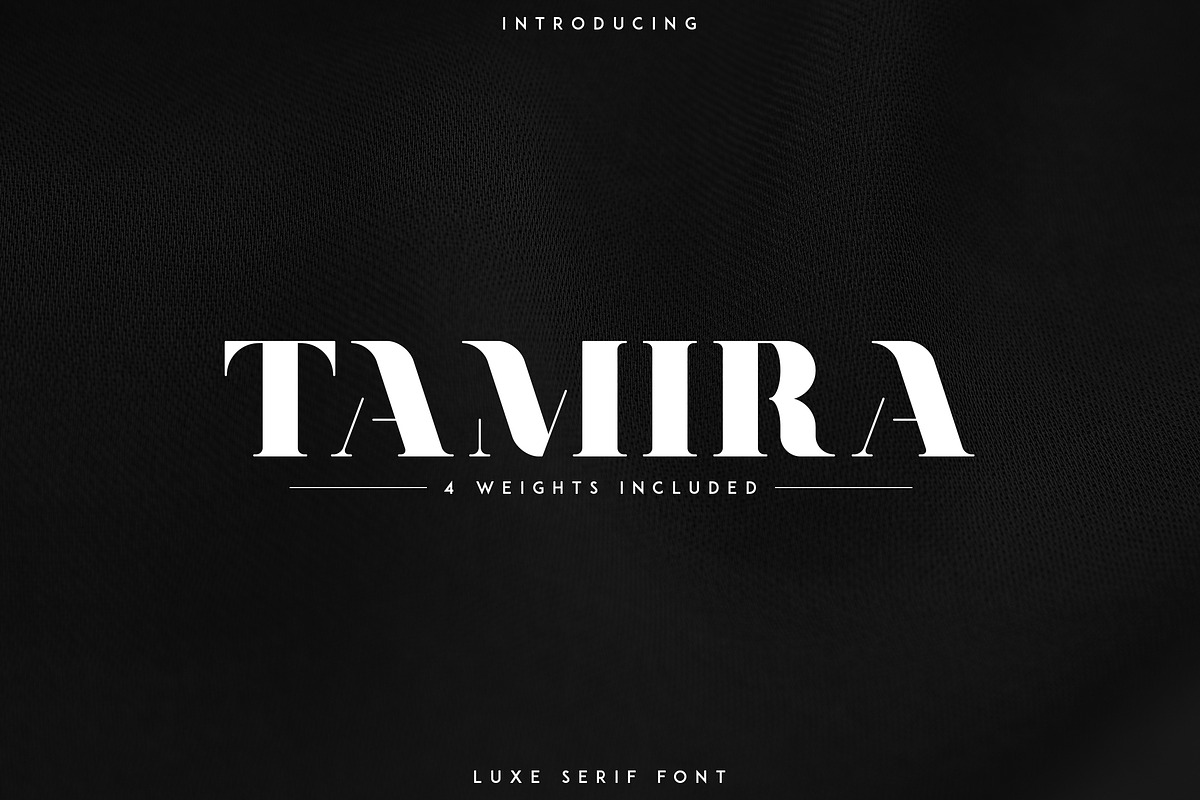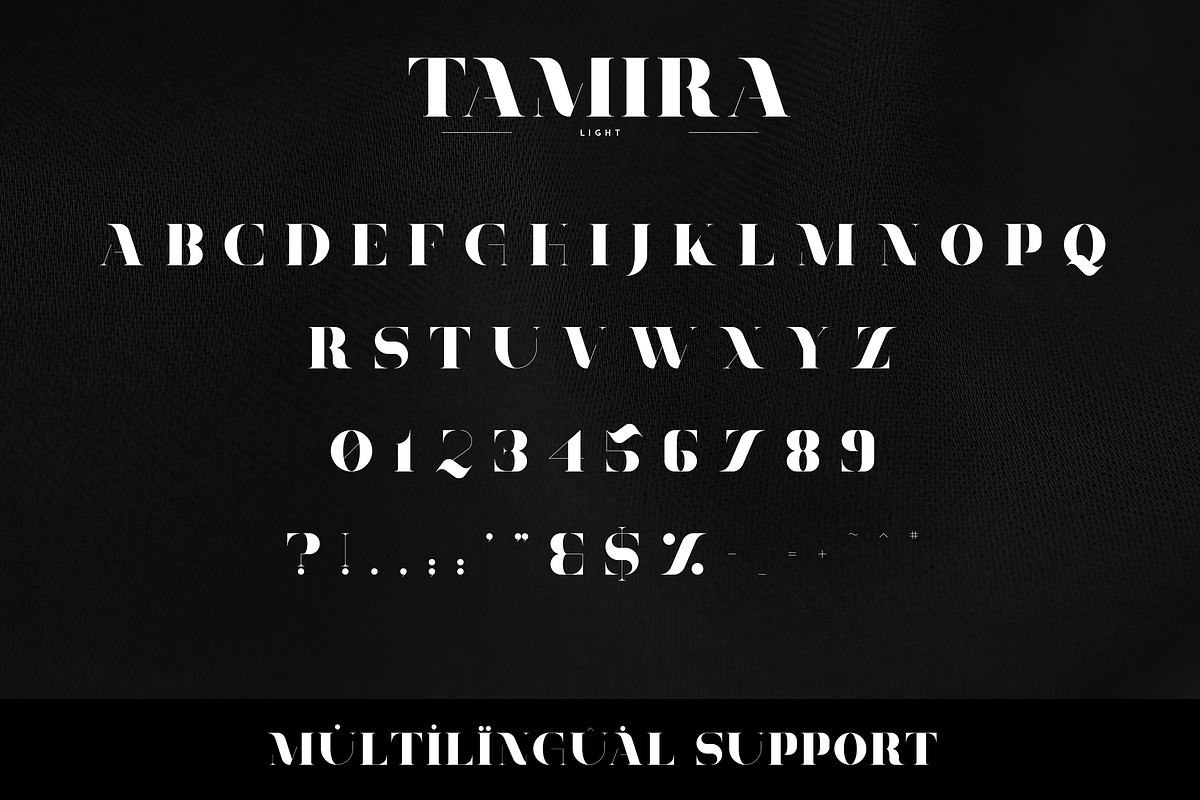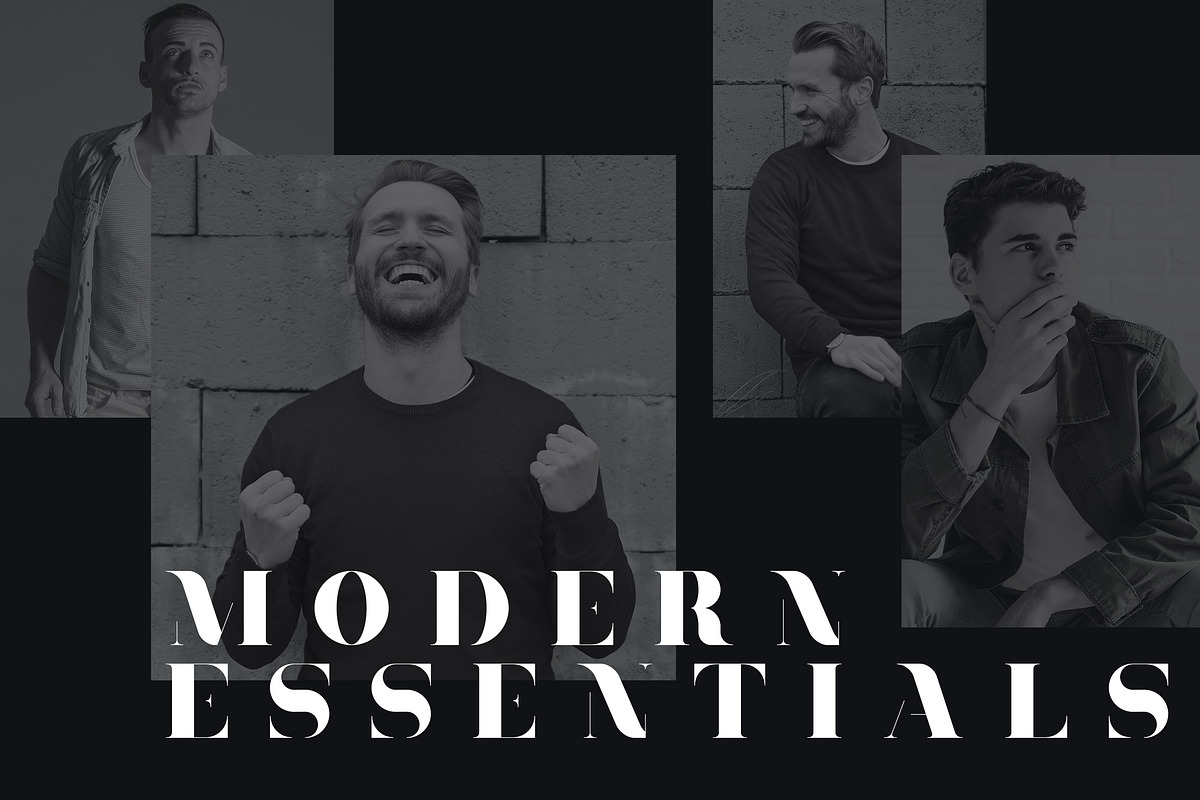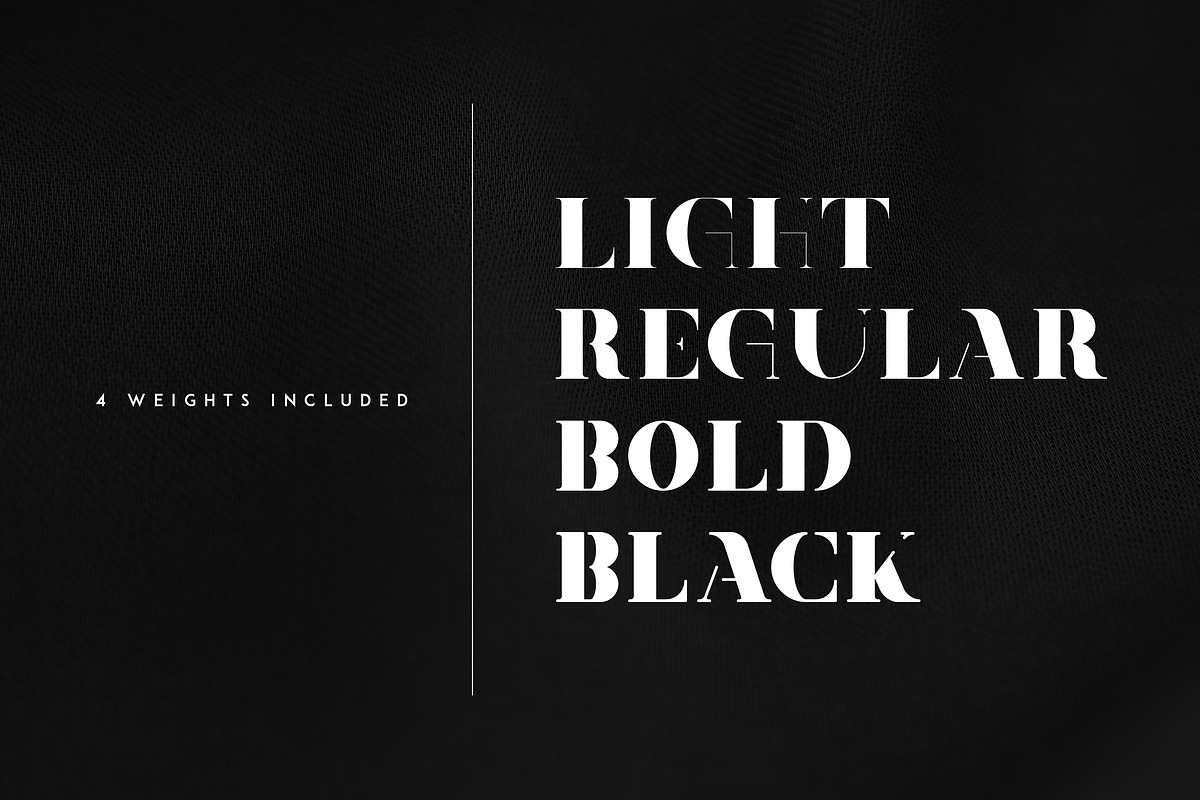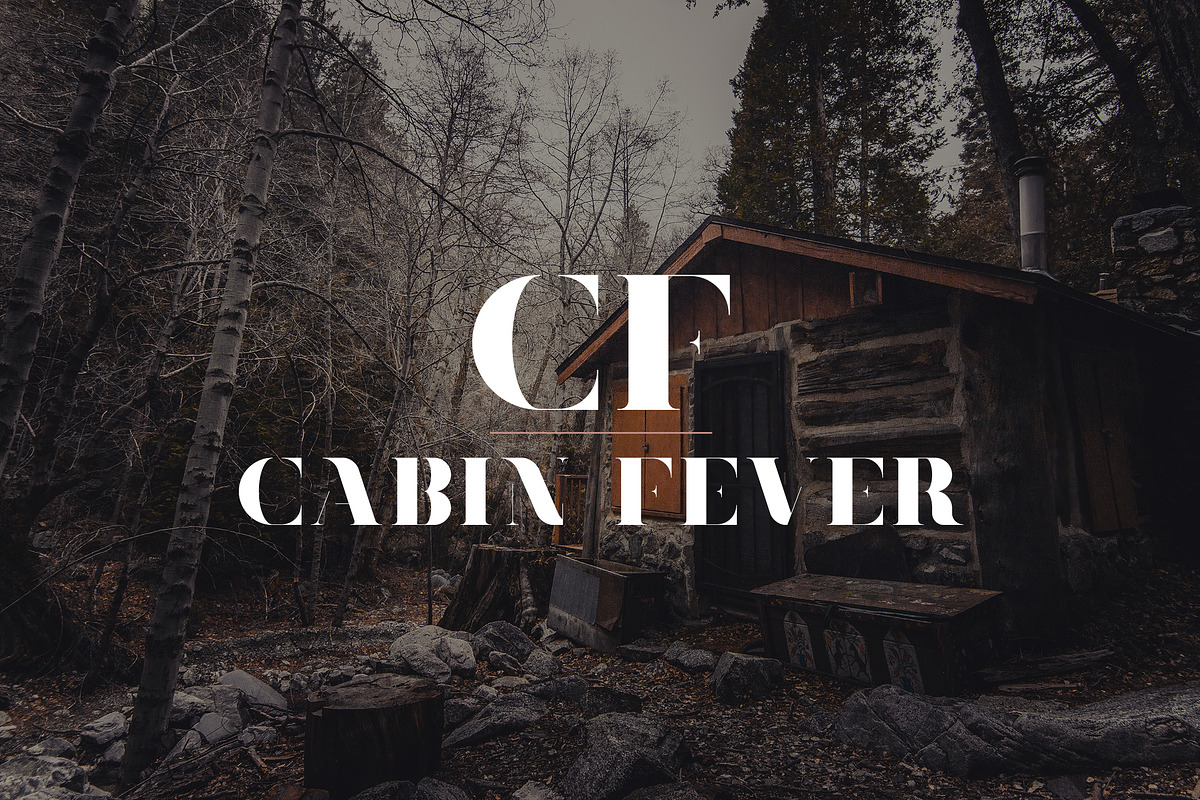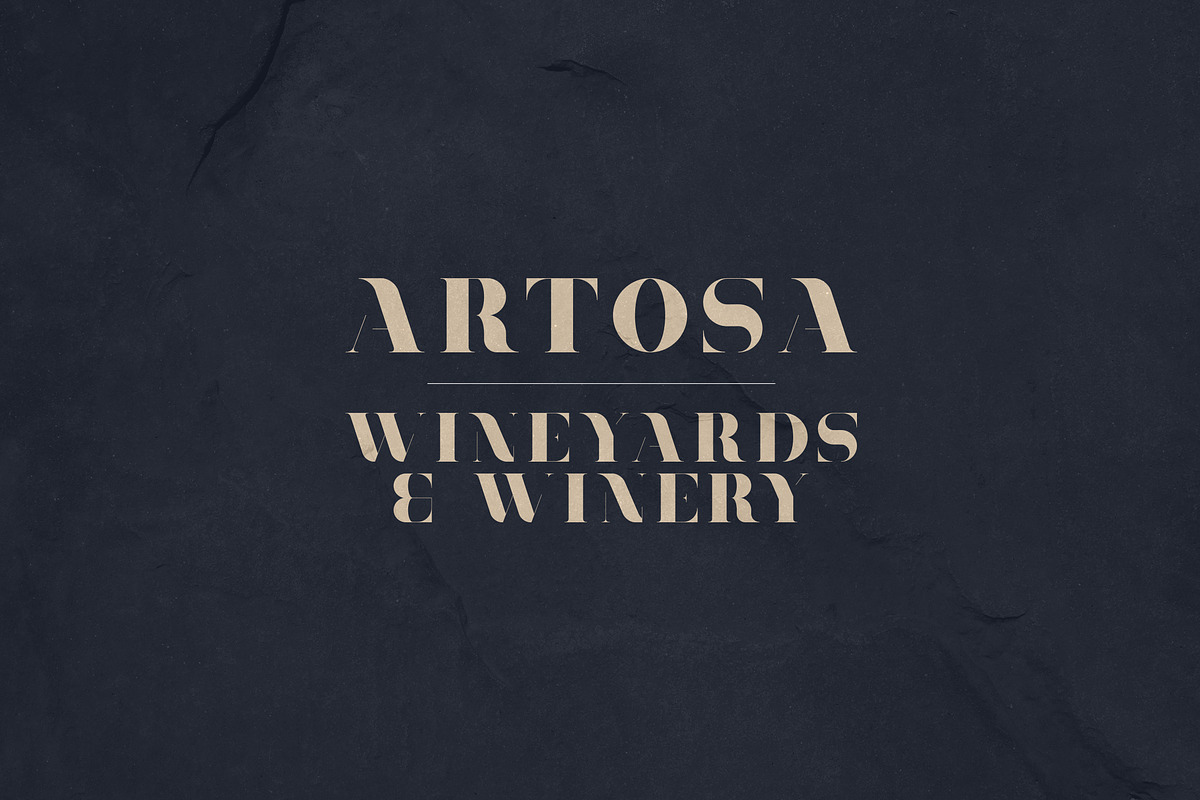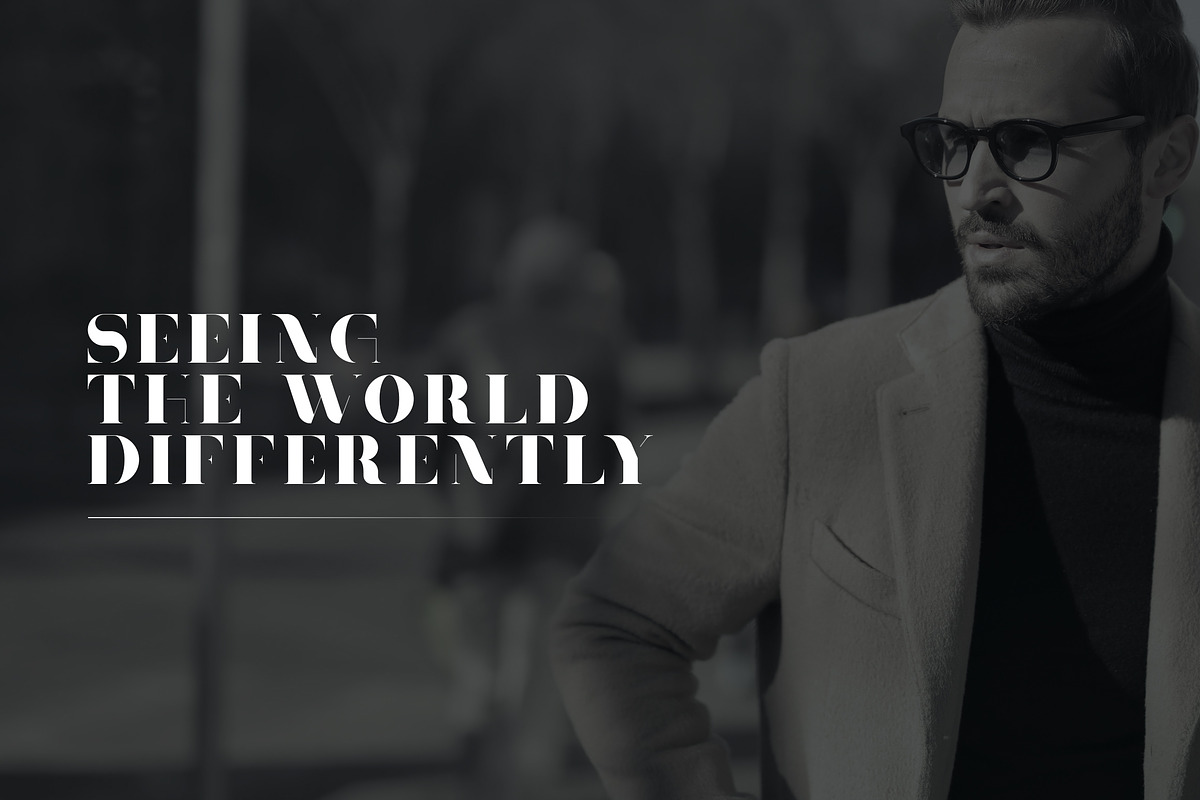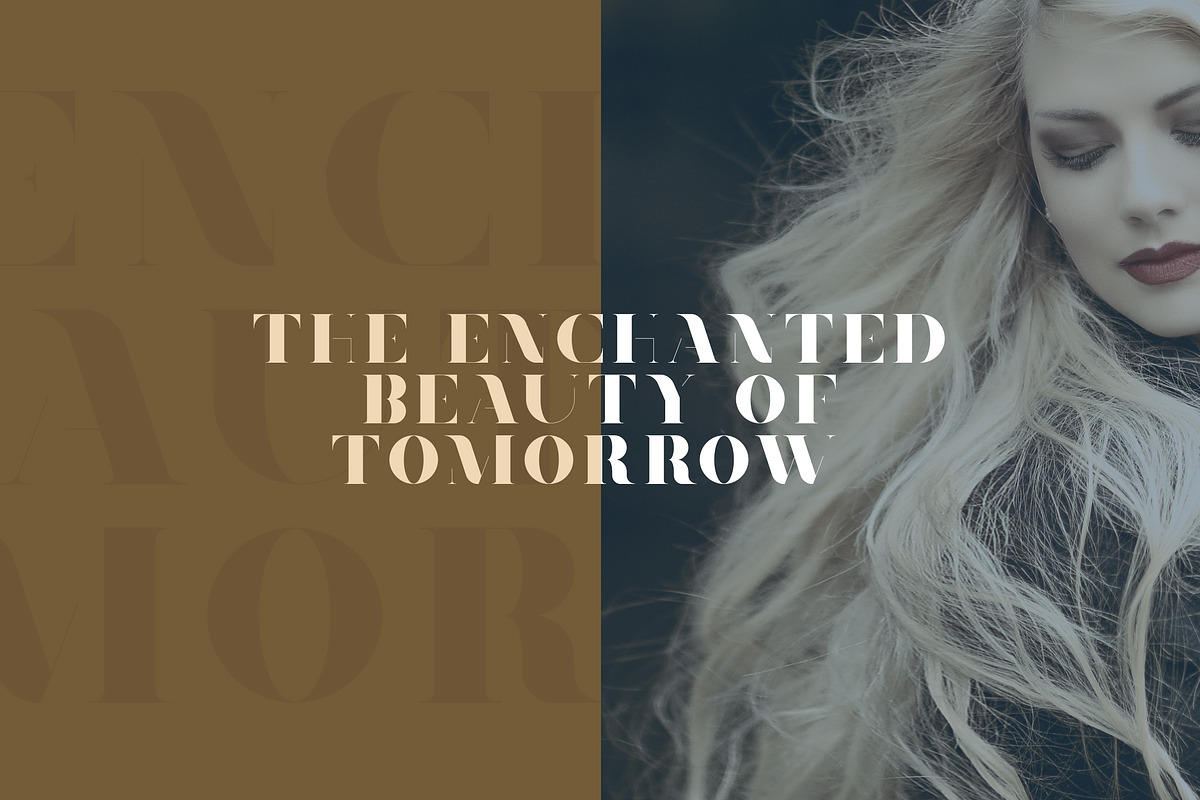
Tamira - Luxe Serif Typeface
Tamira is elegant, bold typeface with 4 weight and multilingual support. It's a very versatile font that works great in large and small sizes.
Tamira is perfect for branding projects, home-ware designs, product packaging, magazine headers - or simply as a stylish text overlay to any background image.